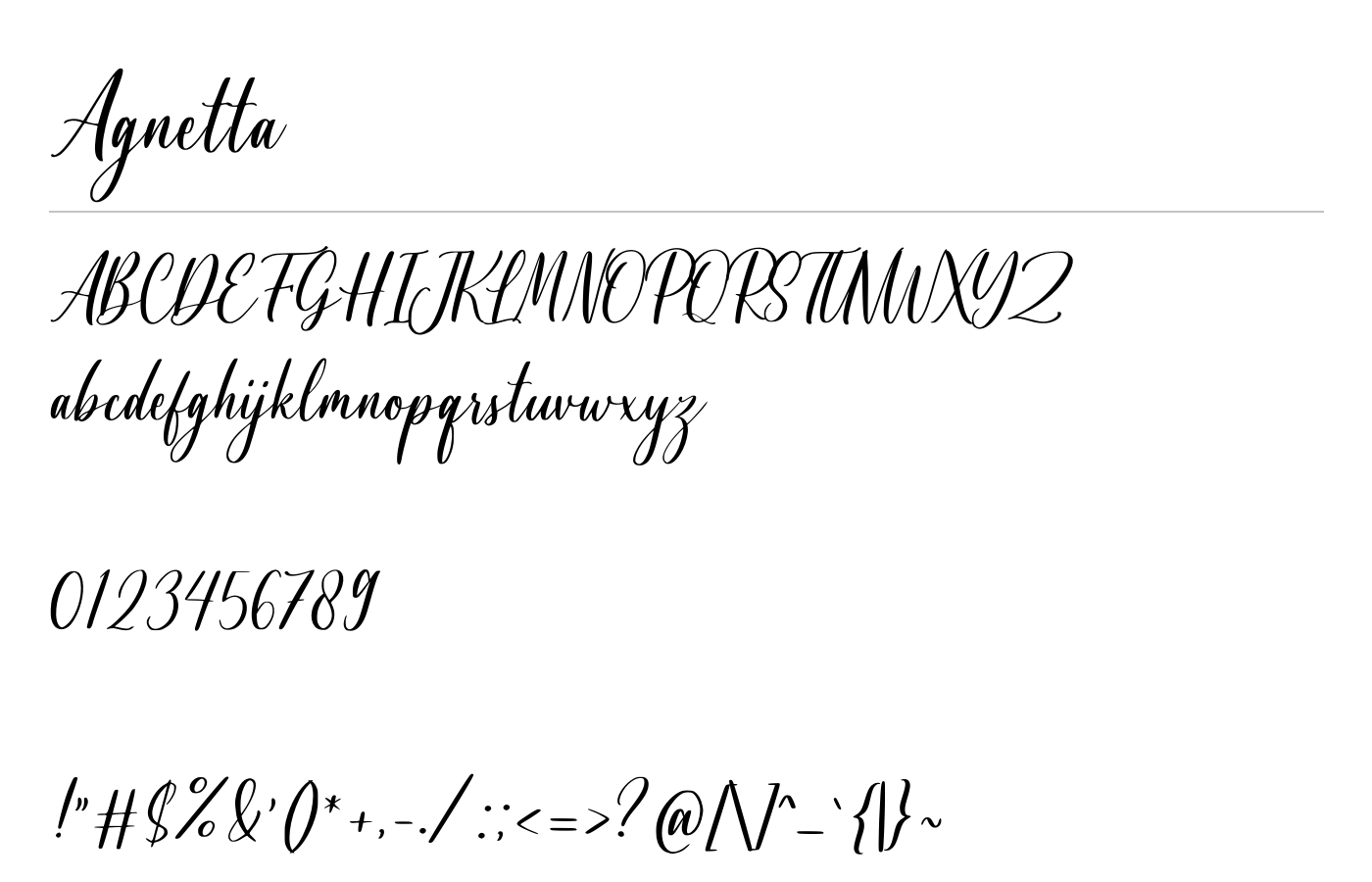
Agnetta is an elegant script font featuring slender, flowing letterforms with a graceful, handwritten style. Its tall x-height and delicate stroke contrast create a refined yet approachable feel, making it ideal for sophisticated branding, invitations, and stylish editorial design. This font’s smooth curves and slightly whimsical details lend a modern yet classic charm perfect for projects seeking a personal and luxurious touch.
Agnetta Font
About Agnetta Font
| Font family | Agnetta Font |
| Designer | Fatmawati |